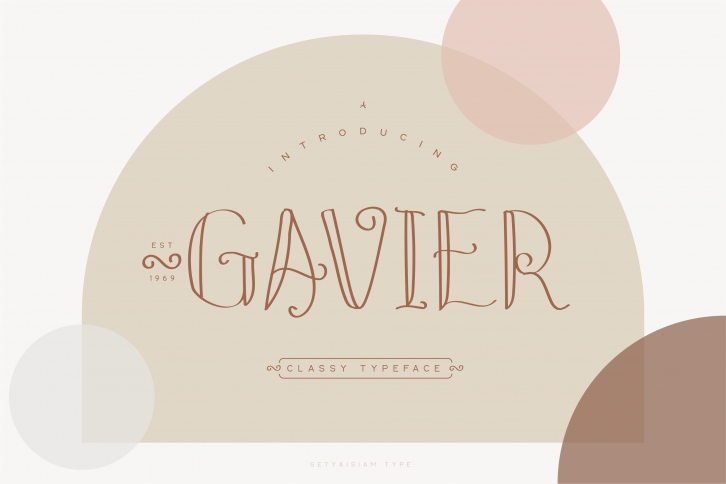
Gavier is a distinct, classy and refined display font. Fall for its ravishing style and use it to create gorgeous wedding invitations, beautiful stationary art, eye-catching social media posts, and much more!